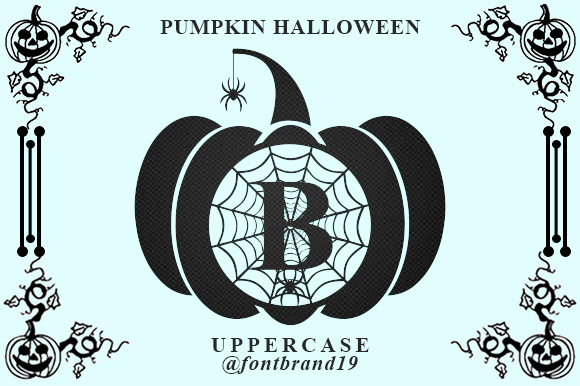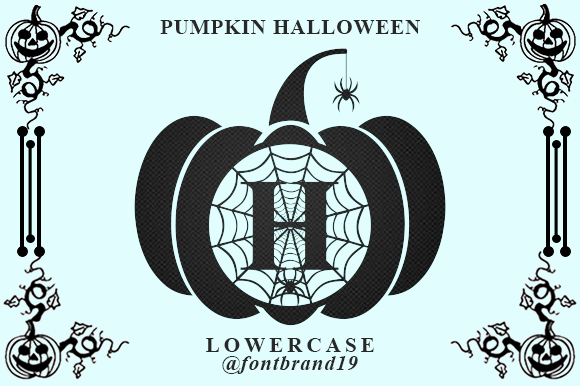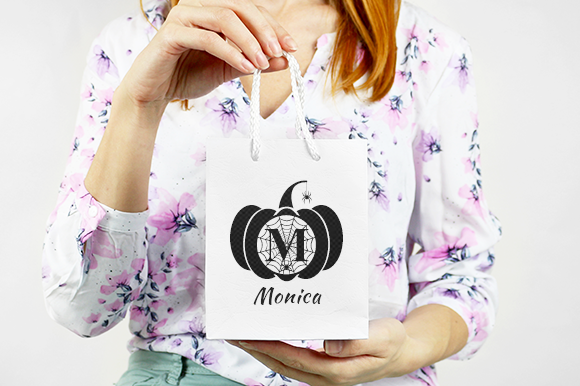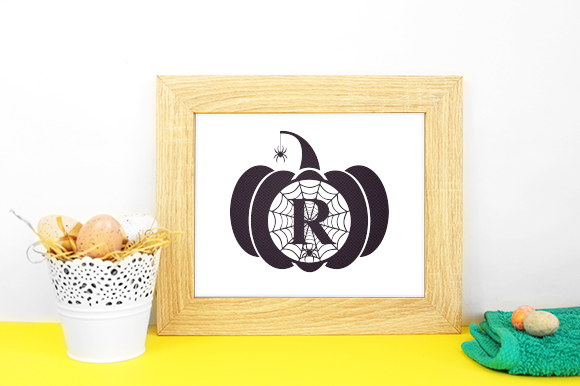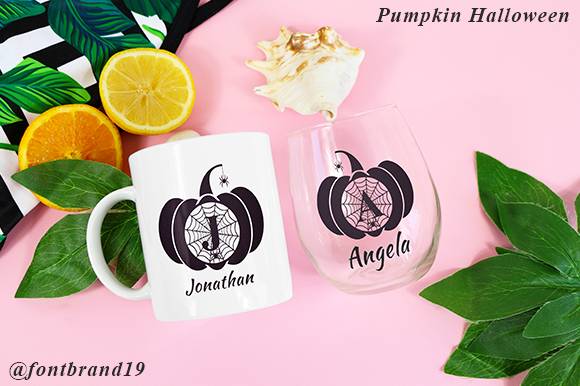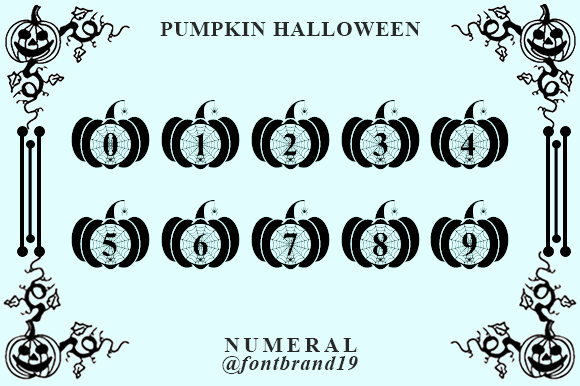
Introduction to Pumpkin Halloween Monogram Font Font
Fonts play a crucial role in design, and the Pumpkin Halloween Monogram Font font is a typeface that brings both character and versatility to any project. Whether you’re working on a branding project, a website, or a print design, the Pumpkin Halloween Monogram Font font offers a unique style that can elevate your work.
Pumpkin Halloween Monogram is an incredibly unique and spooky decorative font.
Add it to your Halloween crafts, horror movie posters, t-shirts and anything else that requires a spectacular look .
Key Features of Pumpkin Halloween Monogram Font Font
Why Choose Pumpkin Halloween Monogram Font Font?
The Pumpkin Halloween Monogram Font font is more than just a typeface – it’s a design tool that helps you communicate your message with style and clarity. Its unique character set and versatile design make it suitable for a wide range of applications, from elegant invitations to bold headlines.
With its carefully crafted letterforms and balanced proportions, the Pumpkin Halloween Monogram Font font ensures readability and visual appeal across all mediums.
What makes Pumpkin Halloween Monogram Font font special?
The Pumpkin Halloween Monogram Font font stands out with its unique design, exceptional readability, and versatility across various design applications.